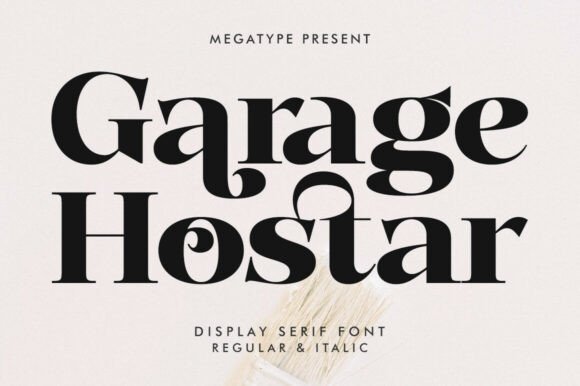
Discover the Elegance and Playfulness of Garage Hostar Font
In the world of typography, few fonts manage to strike a balance between classical elegance and modern playfulness as effectively as Garage Hostar. This unique and highly expressive serif font has been turning heads with its distinctive blend of traditional and contemporary design elements. In this article, we’ll delve into the features, versatility, and uses of Garage Hostar, exploring what makes it a standout choice for designers seeking originality and flair.
Key Features of Garage Hostar
Garage Hostar is characterized by its high-contrast letterforms, typical of Didone-style typefaces. However, it takes this classic style to new heights with the addition of ornamental teardrop terminals and exaggerated curves. These unique features bring a whimsical, almost theatrical flair to the font’s appearance, setting it apart from more traditional serif typefaces.
The consistent vertical stress and sharp contrast between thick and thin strokes ground Garage Hostar in traditional serif principles. At the same time, the flourishes and loops offer a striking, unconventional character that is suited for artistic expression. This blend of classic and modern elements makes Garage Hostar a versatile font that can be used in a wide range of design applications.
The Versatility of Garage Hostar
One of the standout features of Garage Hostar is its versatility. This font can function both as a headline display typeface and a logo-defining element. The uppercase set conveys boldness and authority, making it perfect for titles and headings. On the other hand, the lowercase letters enhance the typeface’s personality with fluid, calligraphic motion, adding a touch of elegance and sophistication to any design.
Whether you’re working on branding, editorial titles, luxury packaging, or modern posters, Garage Hostar is an excellent choice. Its unique blend of classic and modern elements makes it suitable for a wide range of design applications, from high-end fashion brands to artistic and creative projects.
Examples of Garage Hostar in Use
- Branding: Use Garage Hostar as a logo typeface to add a touch of elegance and sophistication to your brand identity.
- Editorial Titles: Garage Hostar’s bold and expressive letterforms make it perfect for use in editorial titles, such as magazine covers and article headings.
- Luxury Packaging: The font’s luxurious and high-end feel makes it an excellent choice for luxury packaging design.
- Modern Posters: Garage Hostar’s unique blend of classic and modern elements makes it suitable for use in modern posters, adding a touch of elegance and sophistication to any design.
Why Designers Love Garage Hostar
Garage Hostar offers a range of benefits for designers seeking originality and flair. Here are just a few reasons why designers love this unique font:
- Unique Design: Garage Hostar’s blend of classic and modern elements makes it a standout choice for designers seeking a unique and original font.
- Versatility: The font’s versatility makes it suitable for use in a wide range of design applications, from branding and editorial titles to luxury packaging and modern posters.
- Legibility: Despite its unique design, Garage Hostar remains highly legible, making it perfect for use in body text and other applications where readability is essential.
- Theatrical Flair: The font’s ornamental teardrop terminals and exaggerated curves add a touch of drama and flair to any design, making it perfect for use in artistic and creative projects.
Typography Tips for Using Garage Hostar
To get the most out of Garage Hostar, here are a few typography tips to keep in mind:
- Use it boldly: Garage Hostar is a font that demands attention, so don’t be afraid to use it boldly and make a statement.
- Experiment with sizes: The font’s versatility makes it suitable for use in a wide range of sizes, from large headlines to smaller body text.
- Pair it wisely: Garage Hostar pairs well with a range of other fonts, but it’s best to pair it with a simpler font to avoid visual overload.
- Pay attention to spacing: As with any font, it’s essential to pay attention to spacing and kerning to ensure that your text is easy to read and visually appealing.
Garage Hostar is a unique and highly expressive serif font that offers a range of benefits for designers seeking originality and flair. Its blend of classic and modern elements makes it suitable for use in a wide range of design applications, from branding and editorial titles to luxury packaging and modern posters. With its high-contrast letterforms, ornamental teardrop terminals, and exaggerated curves, Garage Hostar is a font that demands attention and makes a strong statement. Whether you’re working on a high-end fashion brand or an artistic and creative project, Garage Hostar is an excellent choice.